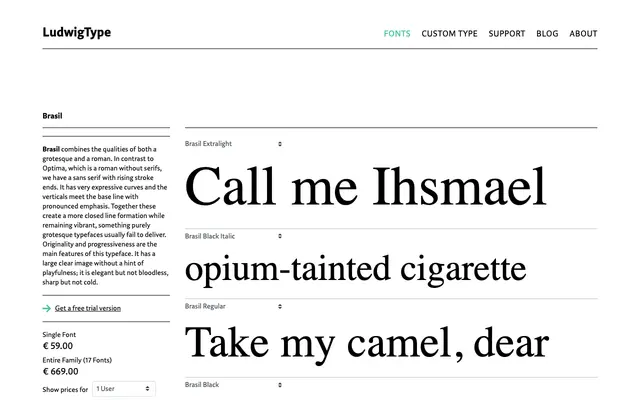
Brasil
A text serif from Ludwig with six weights, matching italics and small caps cuts across most styles.
Brasil covers six weights from Extralight to Black, each with italic companions, and small caps variants at the lighter to medium end of the range. The inclusion of dedicated small caps styles suggests a design oriented towards extended text and literary typesetting. The weight range gives the family enough flexibility to work across body text and display sizes within editorial contexts.
The combination of small caps, multiple weights from Extralight to Black, and italic companions points to a classical text serif with transitional characteristics, suited to extended reading and editorial use.